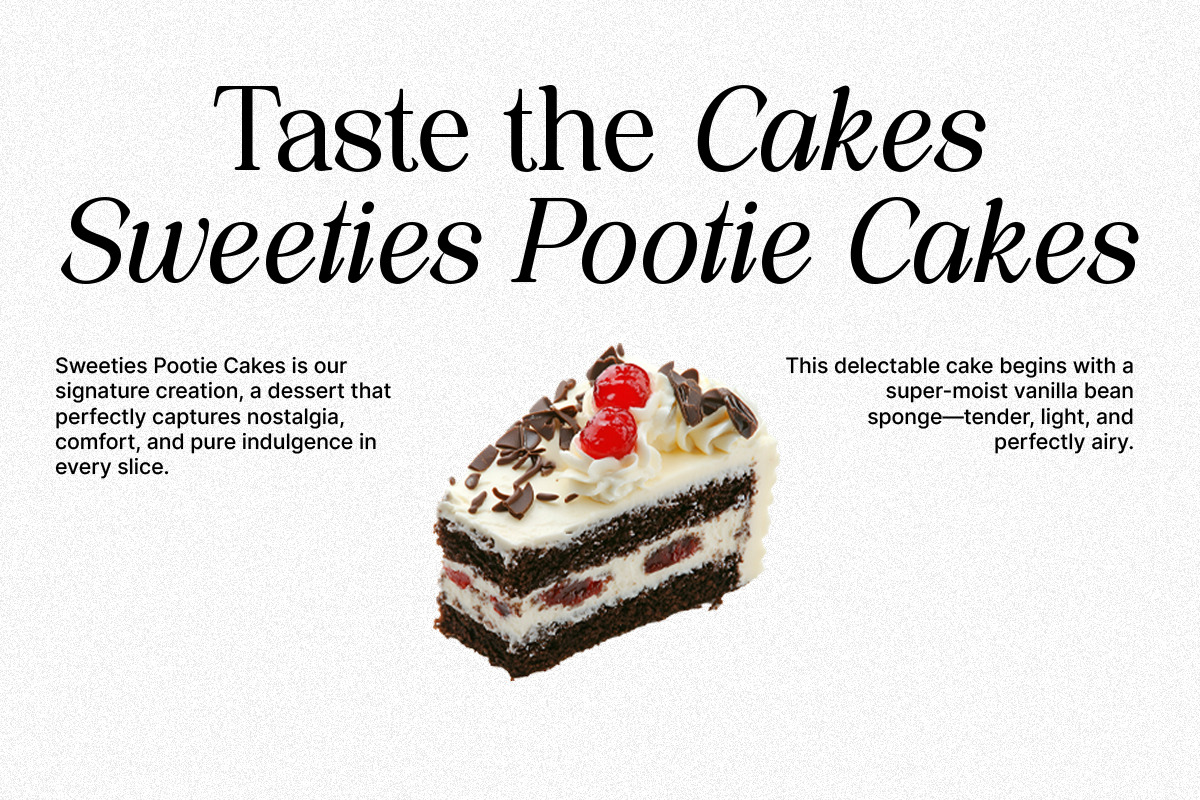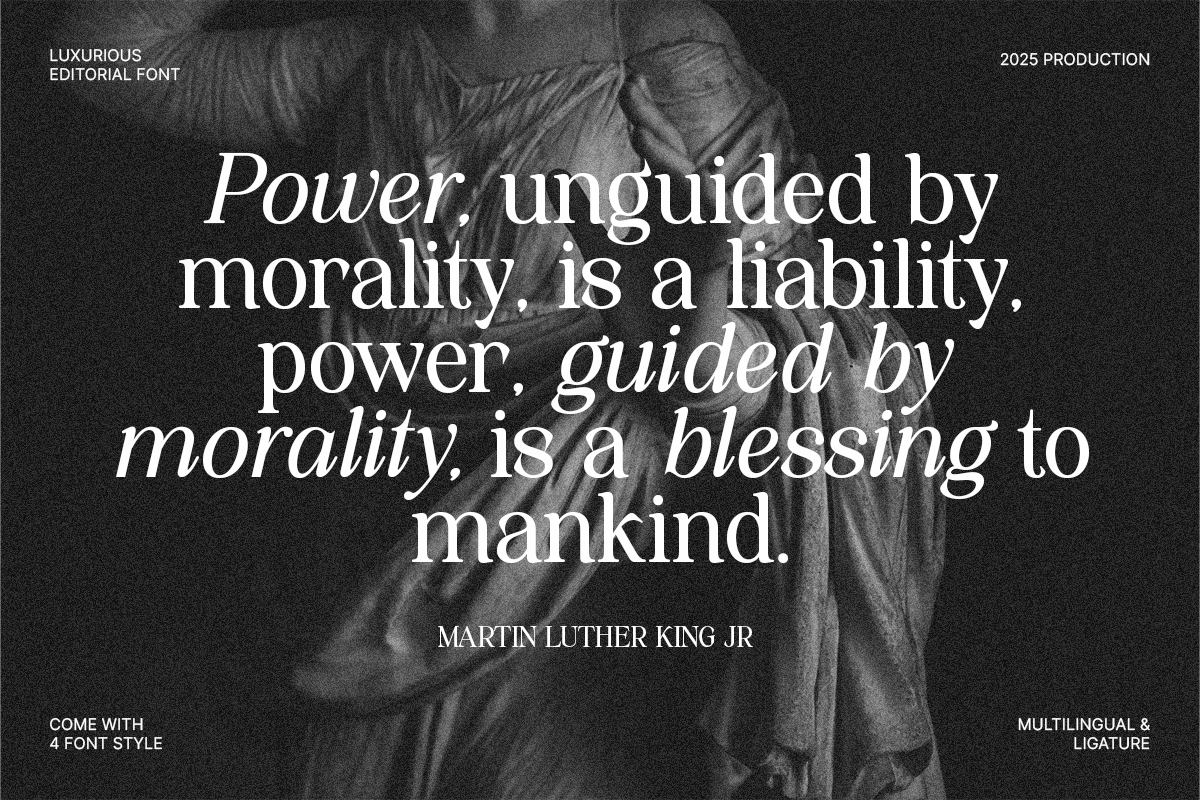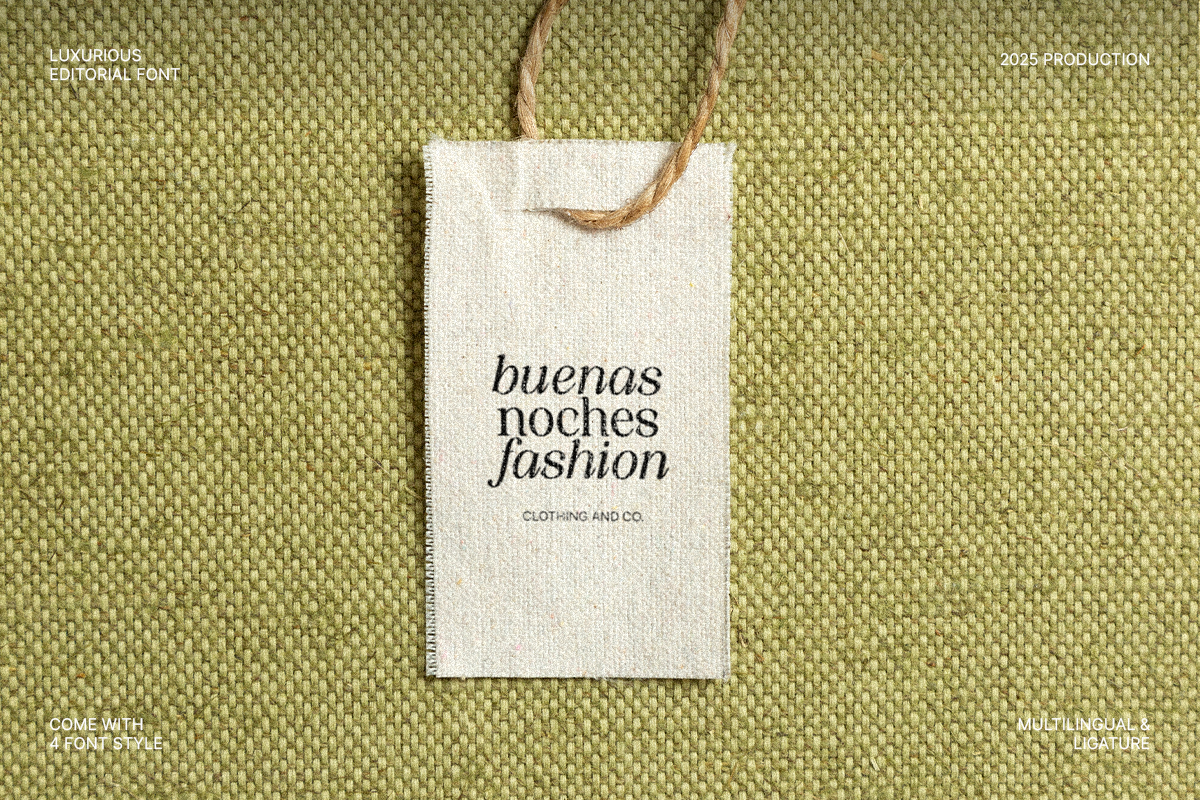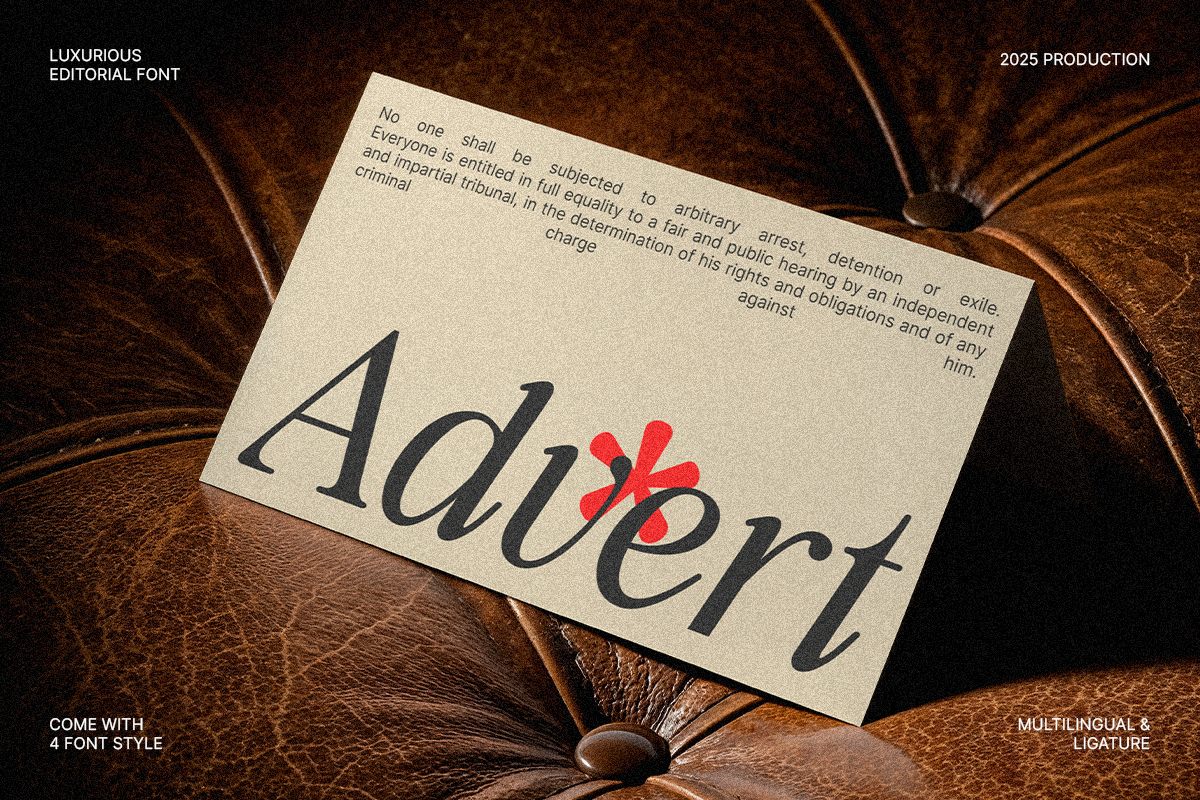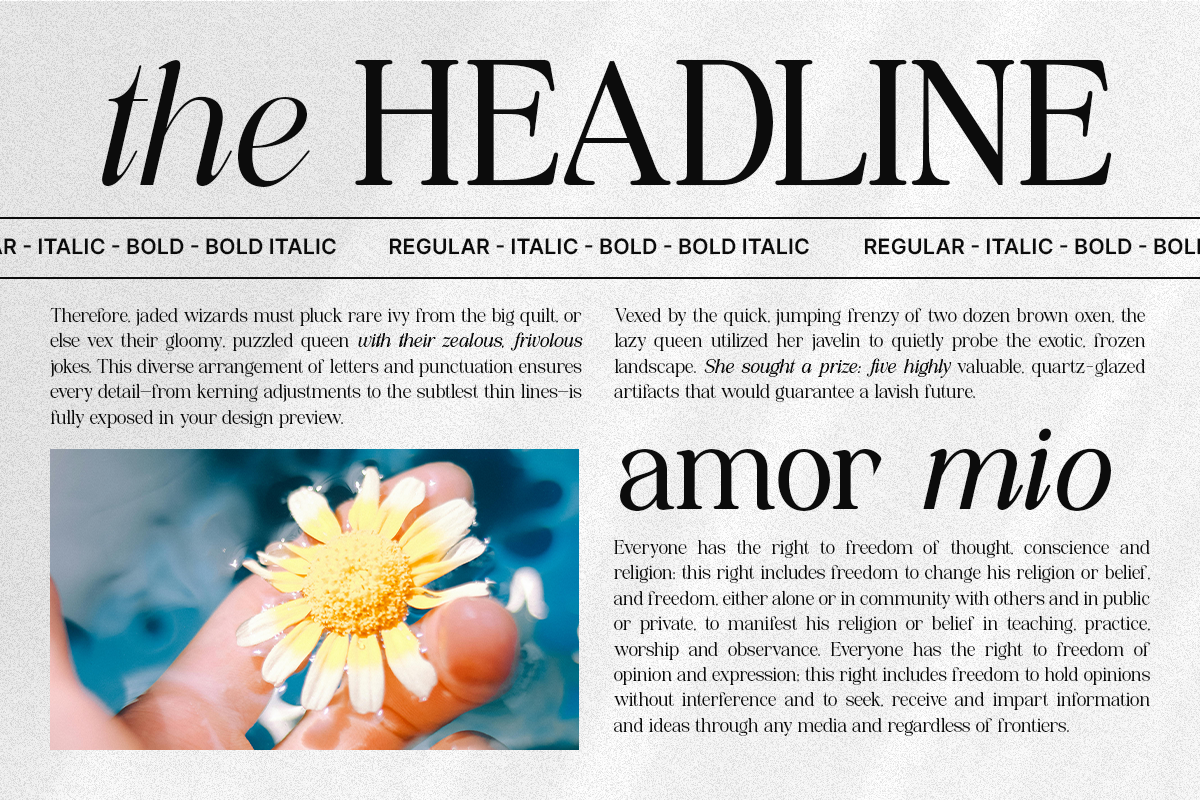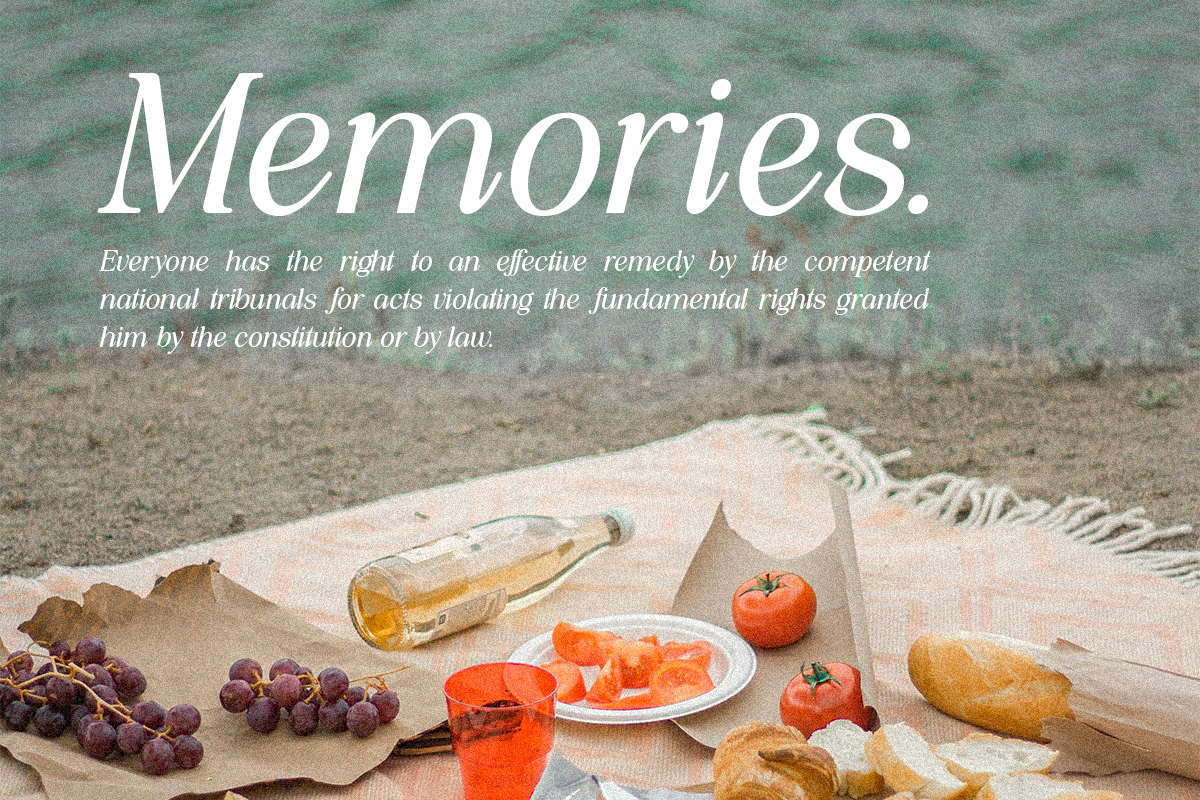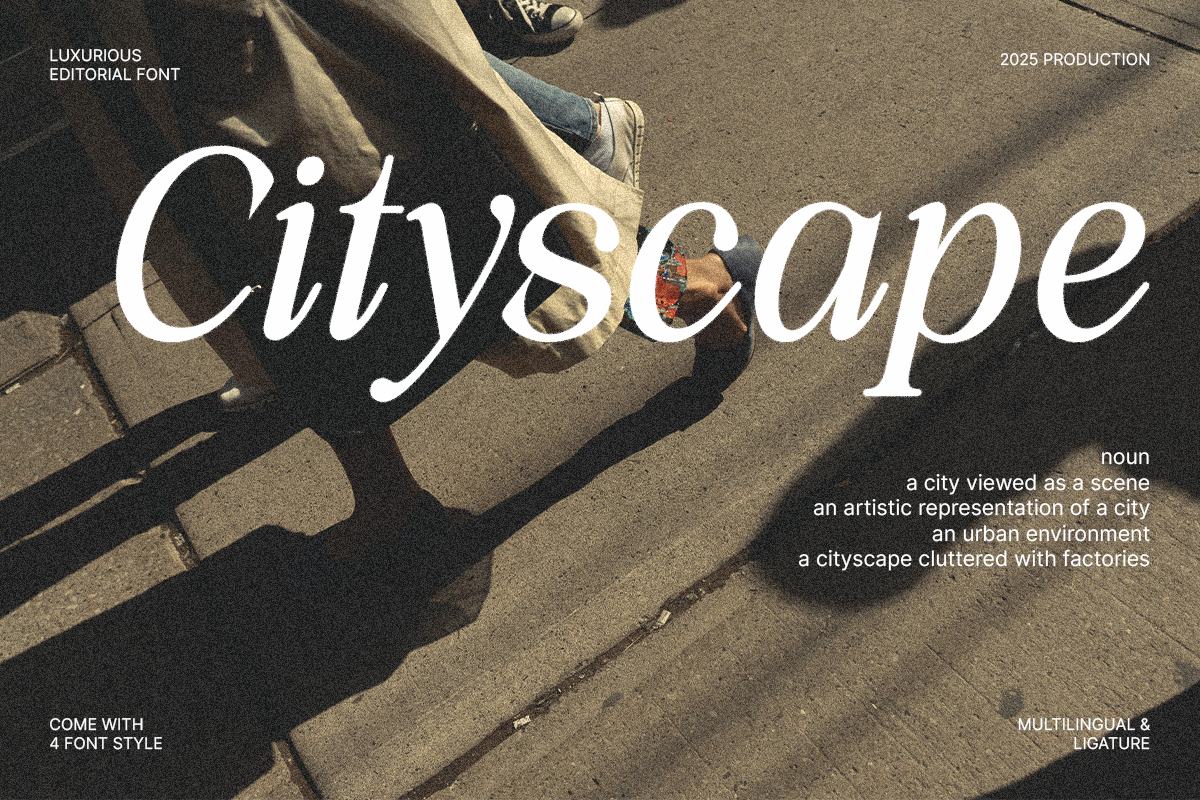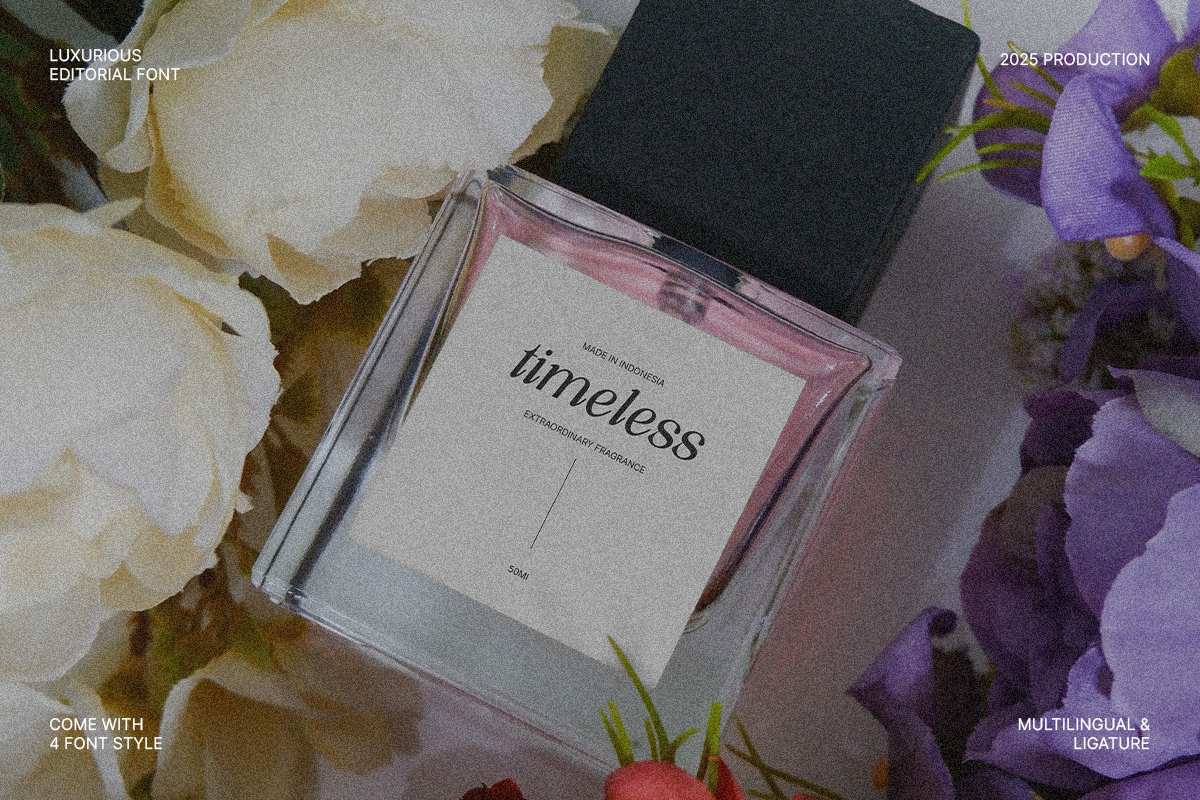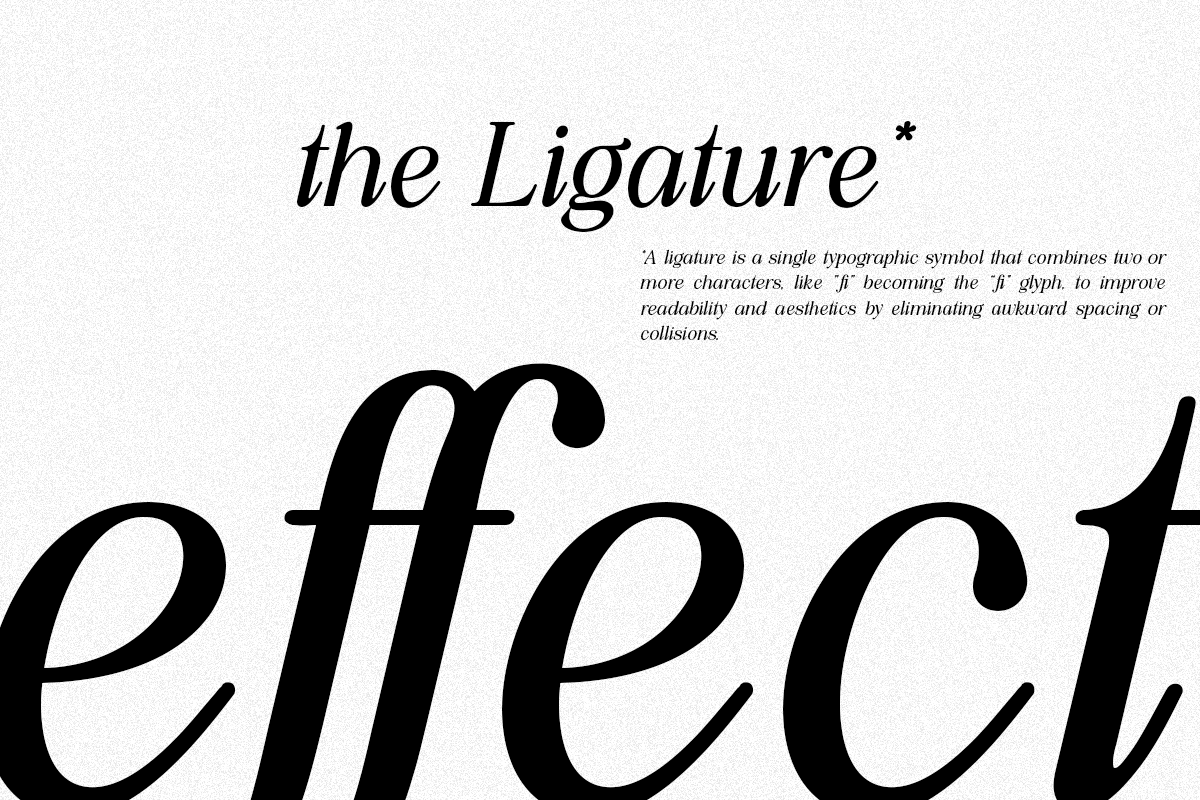
The Starly Ethical
The Starly Ethical is an editorial serif font that blends luxury, elegance, and class with a subtle modern touch. Its character is characterized by graceful bold-thin contrast, sharp yet soft letterforms, and ligature details that reinforce a high-fashion and prestigious feel. This font is designed to convey a luxurious, sophisticated, and timeless look, making it an ideal choice for magazine titles, premium branding, exclusive logos, high-end product packaging, and high-impact digital headlines. With its balance of classic beauty and contemporary aesthetics, The Starly Ethical creates a strong visual statement without compromising on elegance. Equipped with multiple font styles, multilingual support, and elegant ligatures, this font is highly versatile for a variety of editorial and commercial design needs that demand high visual quality.